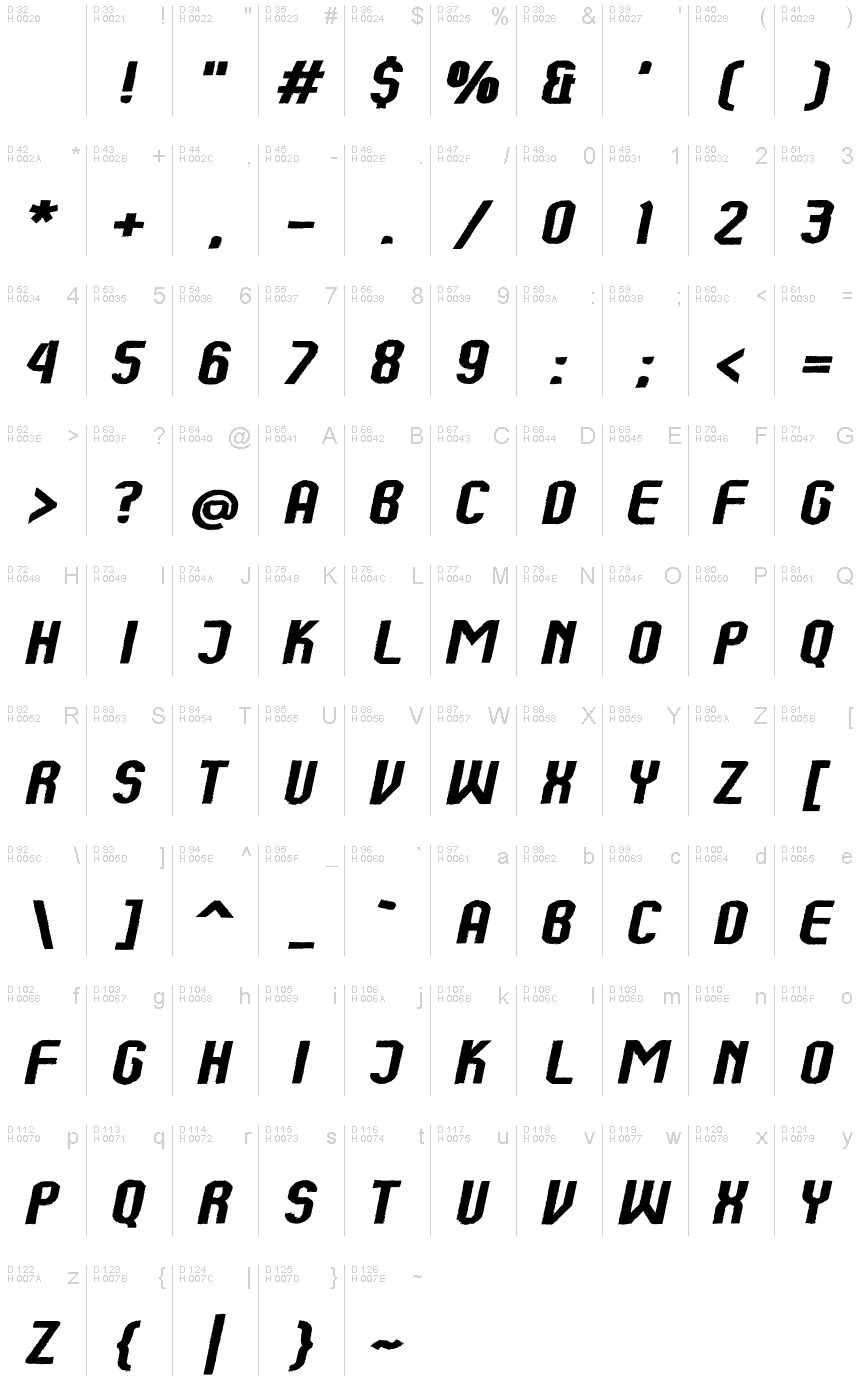
Kumba Brush Expanded Italic
Kumba is inspired by classic typography and brings its own unique style to any design project. This fantastic sans serif font is best suited for headlines of all sizes, as well as for blocks of text that have both maximum and minimum variations. Whether its for web, print, moving images or anything else Kumba will look spectacular.
Kumba Expanded is a great sans serif font. Whether youre looking for fonts for Instagram or calligraphy scripts for DIY projects, Kumba Expanded will turn any creative idea into a true piece of art!